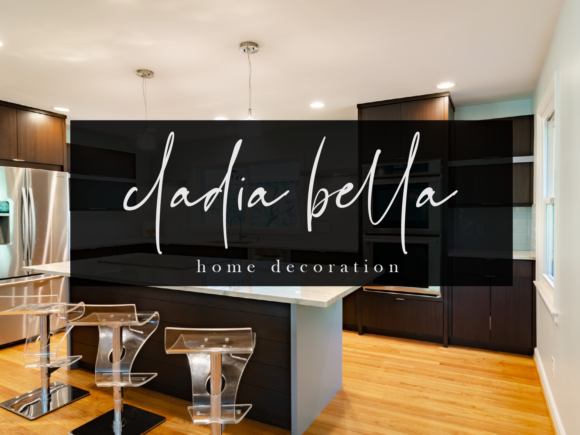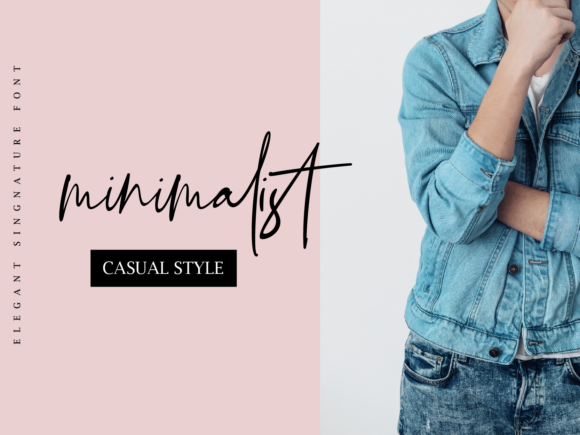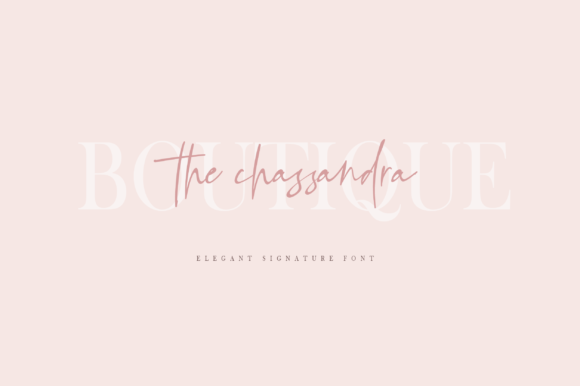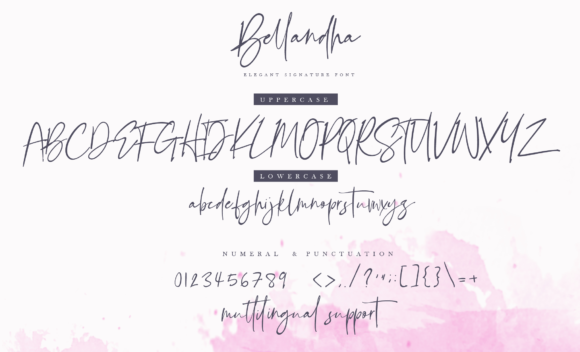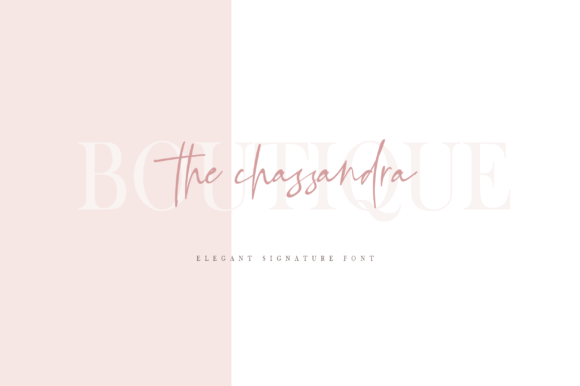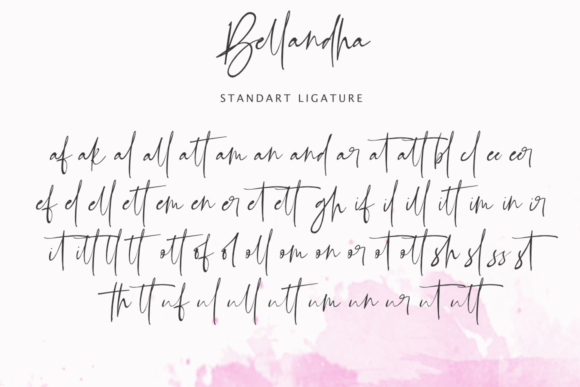
Bellandha Font: The Ultimate Signature Script for Designers and Crafters
In the world of typography, a good font can make all the difference in creating a lasting impression. For designers and crafters looking for a unique and stylish signature script, the Bellandha font is an excellent choice. This amazing font was carefully hand-drawn to replicate natural handwriting, making it perfect for a variety of creative projects.
The Story Behind Bellandha Font
The Bellandha font is a result of meticulous craftsmanship, designed to bring a touch of elegance and sophistication to any design project. Its creator aimed to achieve a natural, hand-written look by adding custom ligatures, which set it apart from other fonts. The result is a beautiful, flowing script that exudes warmth and personality.
Key Features of Bellandha Font
• Hand-drawn with love: The Bellandha font was completely hand-drawn, ensuring a unique and personal touch.
• Natural handwriting feel: Custom ligatures were added to create a natural, flowing script that mimics handwriting.
• Stylish and elegant: The font boasts a sophisticated and stylish look, making it perfect for high-end branding and design projects.
• Versatile: Bellandha font can be used for a wide range of projects, including branding, logo design, product packaging, and handwritten quotes.
Whether you’re a designer looking for a unique font for your client’s branding project or a crafter seeking a stylish script for your handmade products, the Bellandha font is an excellent choice. Its versatility and elegance make it suitable for various applications, including:
• Branding and logo design: Create a lasting impression with a custom logo or branding project that showcases your business’s personality.
• Product packaging: Add a touch of elegance to your product packaging with a beautiful, hand-written font.
• Handwritten quotes and posters: Use Bellandha font to create stunning handwritten quotes and posters that showcase your creativity.
Tips for Using Bellandha Font
To get the most out of the Bellandha font, here are some tips to keep in mind:
• Pair with complementary fonts: Combine Bellandha font with complementary fonts to create a visually appealing design.
• Experiment with colors and textures: Add depth and interest to your design by experimenting with different colors and textures.
• Use for headlines and titles: Bellandha font is perfect for headlines and titles, adding a touch of elegance and sophistication to your design.
In conclusion, the Bellandha font is a stunning signature script that offers a unique and stylish touch to any design project. Its hand-drawn, natural look and feel make it perfect for designers and crafters looking for a high-quality font. With its versatility and elegance, Bellandha font is sure to become a favorite among creative professionals.